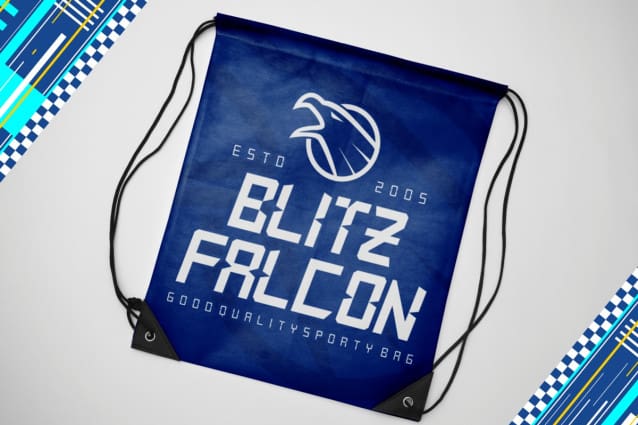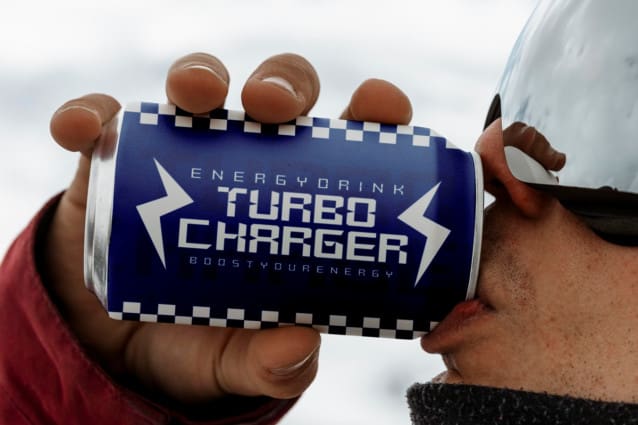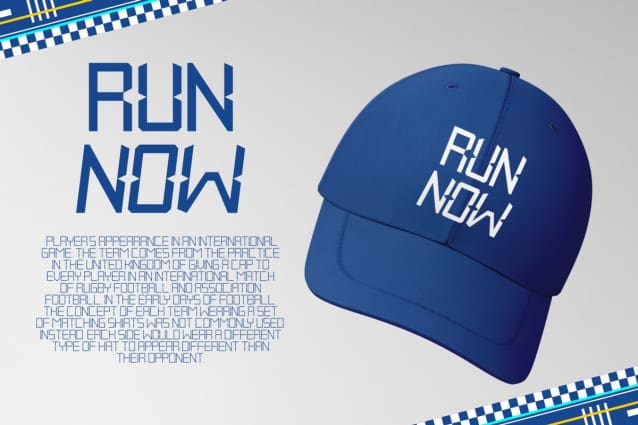
Nitro Nova Font Family
Nitro Nova Font Family, a cutting-edge typeface designed to bring the thrill of speed to your creative projects. With its sleek lines and modern tech-inspired flair, this display font embodies movement and dynamism, making it an ideal choice for any design that aims to stand out. Nitro Nova’s characters boast a unique blend of sharp angles and precise curves that evoke the essence of digital precision mixed with racing excitement. Whether you’re crafting logos or branding materials, this typeface ensures your message crosses the finish line with impact.
Nitro Nova – Race Font isn’t just about looks; it’s about versatility too. Its distinctive style makes it perfect for an array of applications – from eye-catching packaging to bold poster titles that demand attention. Imagine using this font on invitations that set the tone for an event or on business cards that leave a lasting impression. It’s also well-suited for children’s books where fun meets readability or magazines where headlines need to pop off the page. With Nitro Nova – Race Font, your creative possibilities race beyond limits.